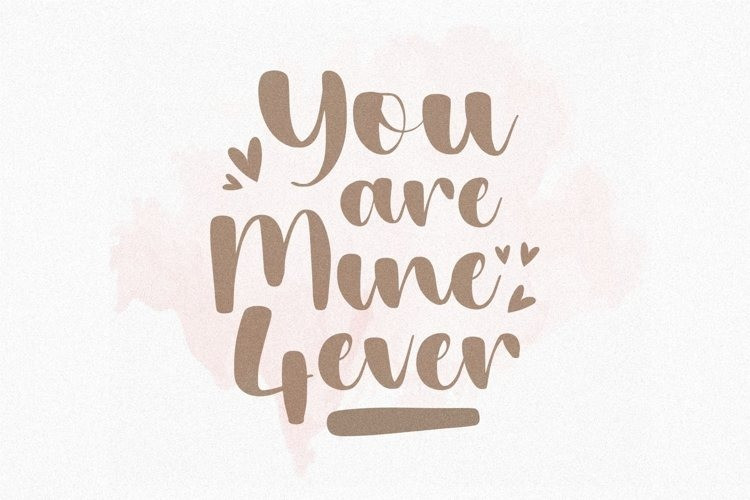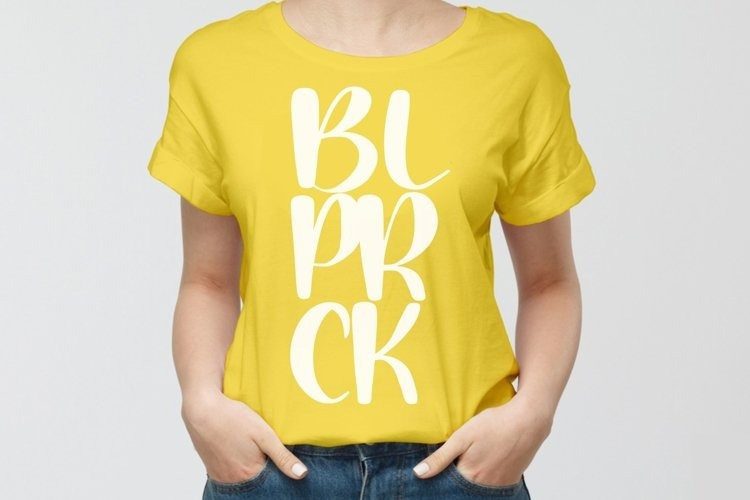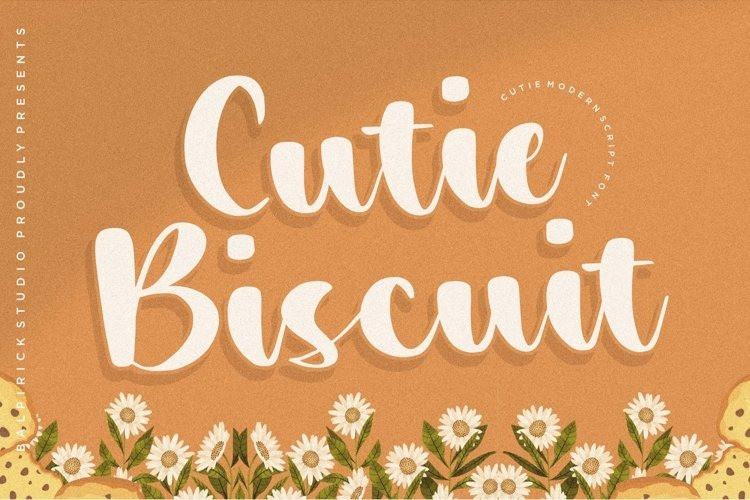
Cutie Biscuit Script Font
Introducing by Balpirick Studio.
Proudly Present, Cutie Biscuit Font.
Cutie Biscuit is a Cutie Modern Script Font.
Cutie Biscuit is perfect for product packaging, branding project, megazine, social media, wedding, or just used to express words above the background.